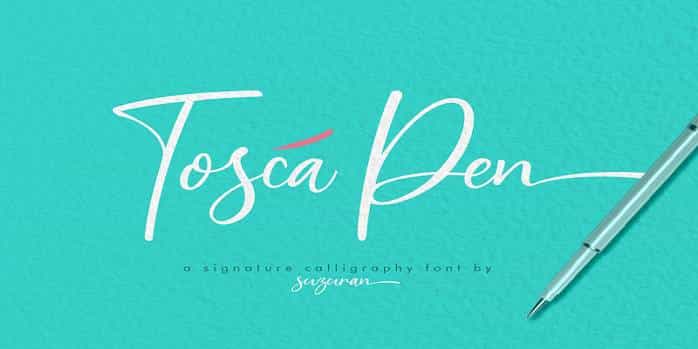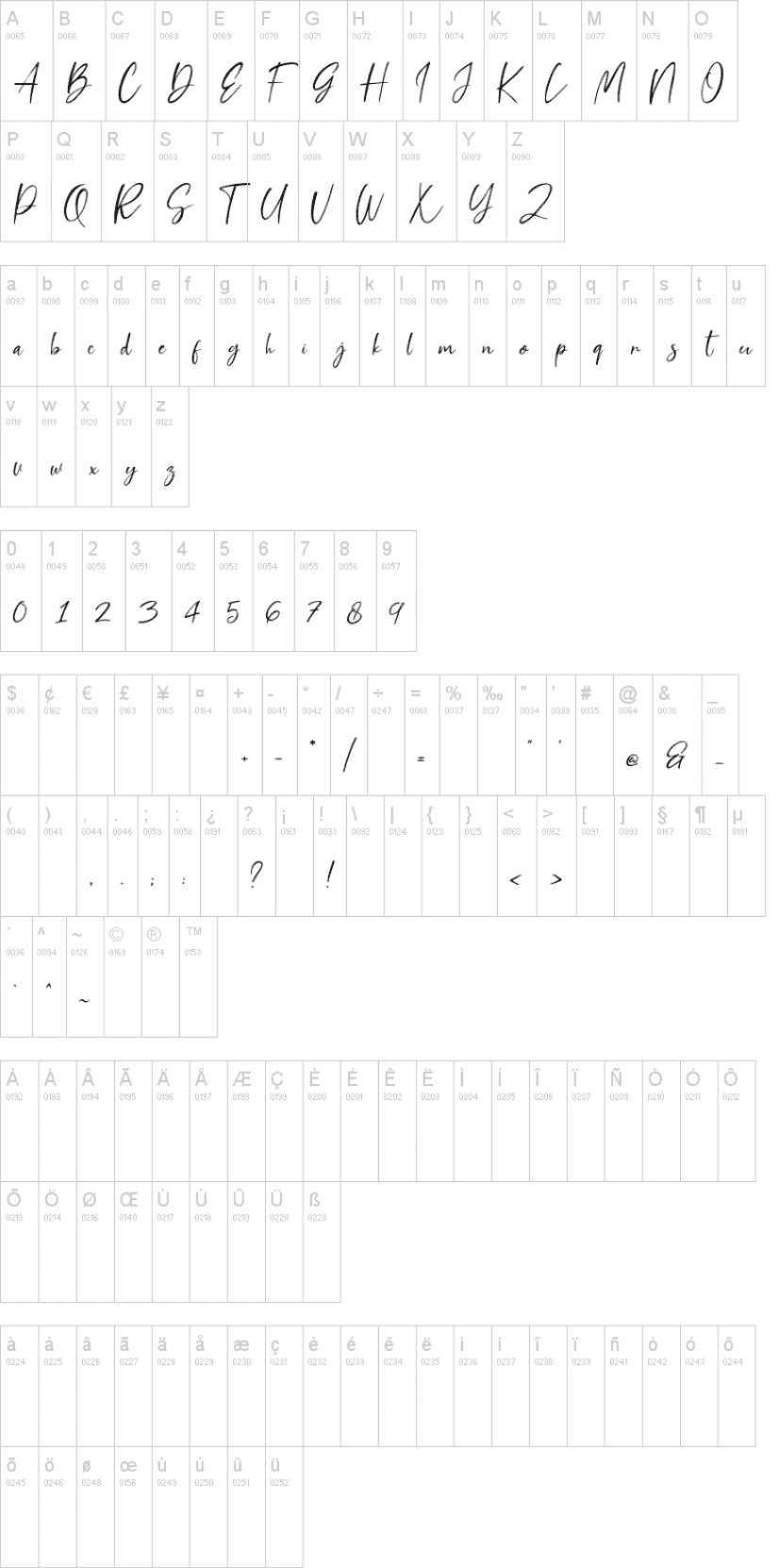
Discover Tosca Pen Font, part of the Calligraphy collection—a versatile and unique font perfect for adding a personal touch to your projects. Download it for free and enjoy crafting designs with style, from invitations to social media posts. This font is available exclusively for personal use, giving you the freedom to create without limits. Unlock your creativity with Tosca Pen Font today!
Tosca Pen is a Calligraphy font type created by Suzuran San and is of superior quality, it is free for personal use. The free version offers all capital and small letters and some special characters as well.